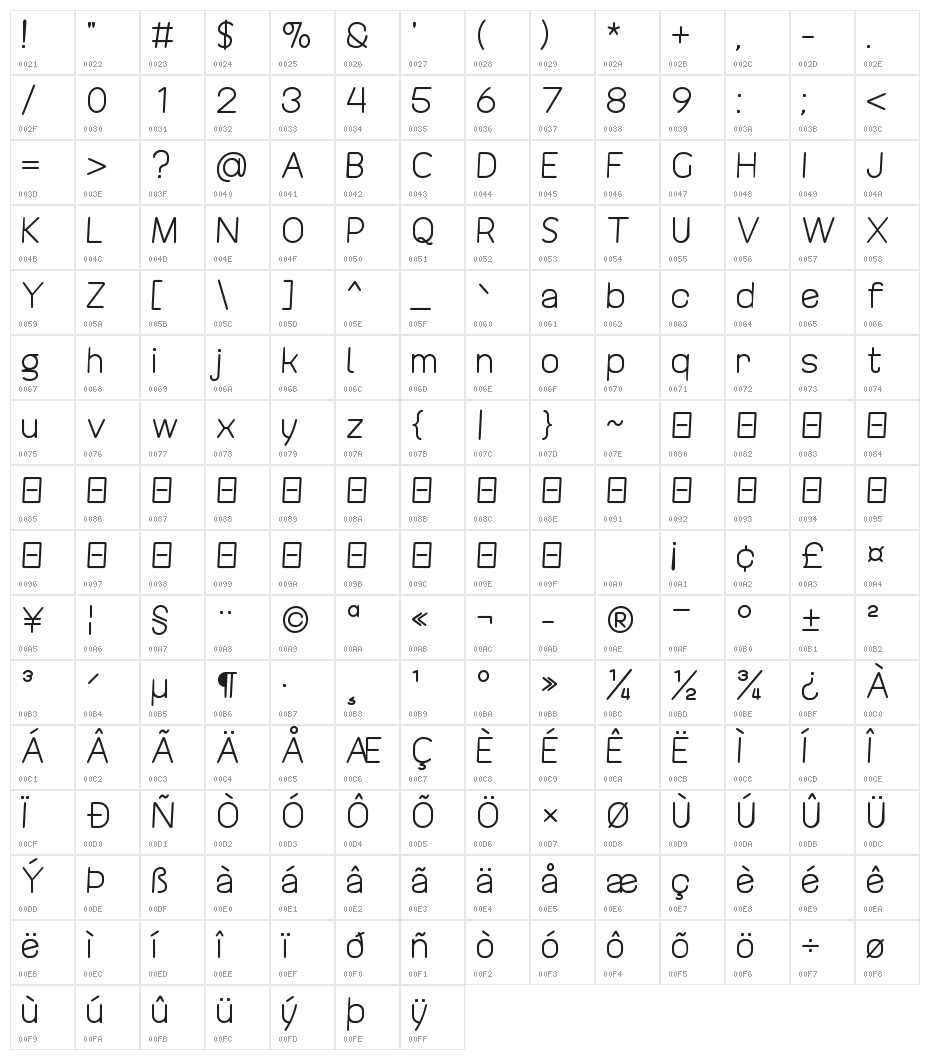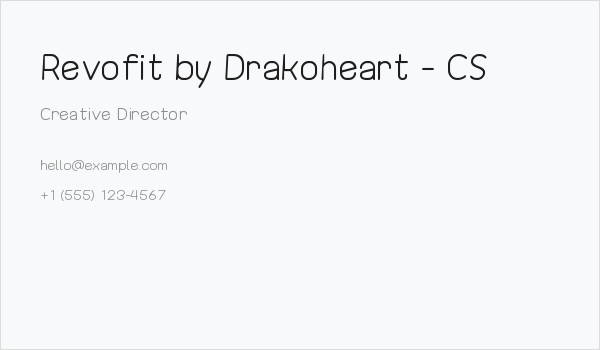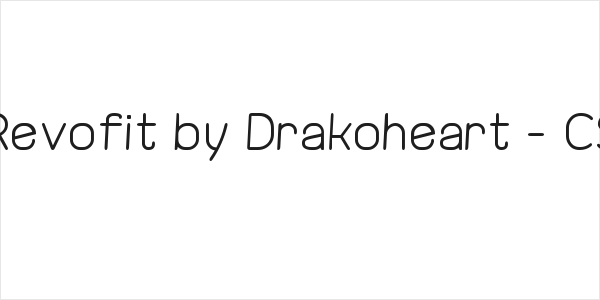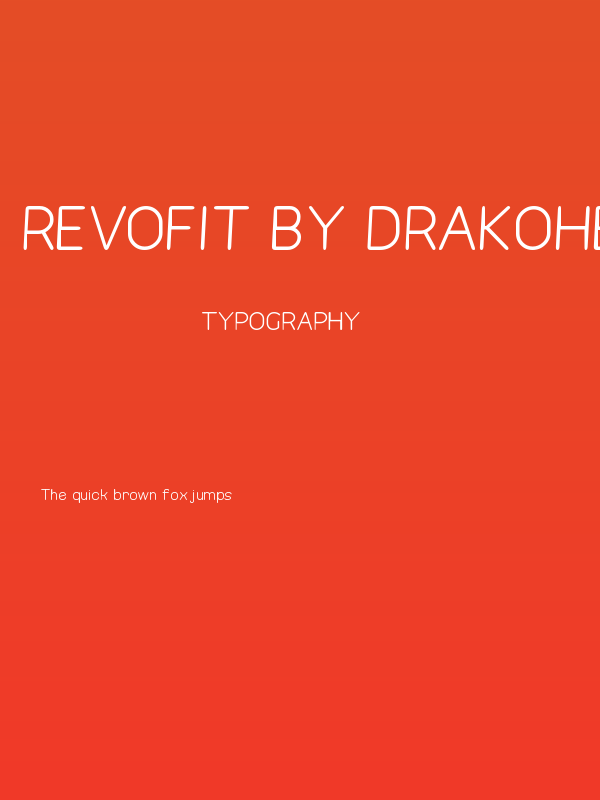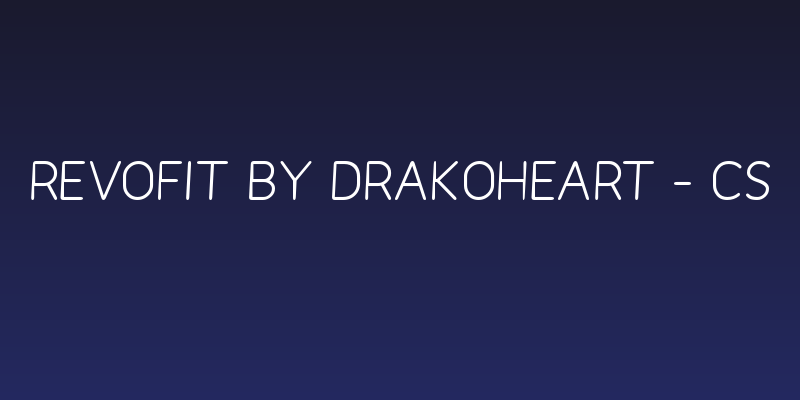
Revofit by Drakoheart - CS Font
Revofit by Drakoheart - CS Description
This font features a clean and modern design with rounded edges, giving it a friendly and approachable appearance. The characters are evenly spaced, providing a balanced and harmonious look. The uppercase and lowercase letters maintain a consistent style, with smooth curves and a uniform stroke width. The numerals are clear and legible, making them suitable for various applications. Special characters are well-integrated, maintaining the overall aesthetic of the font. Its simplicity and clarity make it versatile for both digital and print media.
| Proposed Projects | Ideal for branding, web design, user interfaces, and educational materials. |